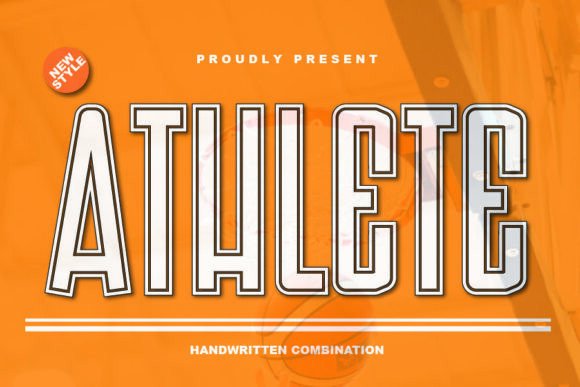
Athlete Font: Bold Display Font for Sports Branding
About the Athlete Font
Make a bold statement with Athlete Font, a powerful and memorable font. Introducing ‘Athlete’, a font that encapsulates the zest and audacity synonymous with art. True and clean in form, it lends a fresh linear aesthetic to your creative ventures. Perfect for bold advertisements, standout brand personas, iconic album art, chic apparel, and any ingenious design. ‘Athlete’ radiates an urban charm through its sleek, straight lines, giving your projects a modern edge.
Athlete excels in headlines, short-form text, and branding applications where a strong, modern aesthetic is desired. Its clean lines make it ideal for logos, posters, and packaging designs requiring impact. However, its linear structure and relatively high x-height make it less suitable for extended body copy or UI elements where readability over long stretches is crucial.
The font’s personality is bold and confident, yet refined. It projects a sense of modern energy and urban sophistication. Therefore, it pairs well with geometric sans-serifs like Futura or a neutral typeface such as Lato for balance. For a more contrasting approach, a delicate script like Pacifico could add a touch of unexpected flair.
Consider pairing Athlete with a complementary serif like Garamond for projects needing both impact and a sense of classic elegance. This combination creates a visually interesting hierarchy, allowing Athlete to dominate headlines while Garamond provides readability for supporting text.
Athlete Font Usage Examples
Athlete Font Example